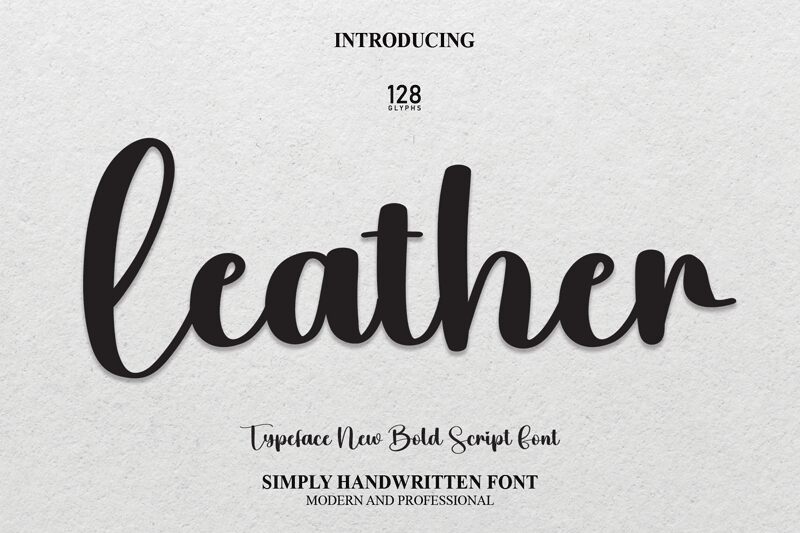
Leather
Leather, a bold and captivating font designed by Scratchones, combines the elegance of a smooth brush style with a striking bold weight. Its robust and distinctive strokes exude confidence and make it an excellent choice for branding projects that require a strong visual impact.
Whether it's a luxury fashion label, a modern restaurant with an edge, or an adventurous outdoor gear company, Leather adds a touch of sophistication and allure to any design. With its seamless blend of strength and finesse, this font is sure to leave a lasting impression.